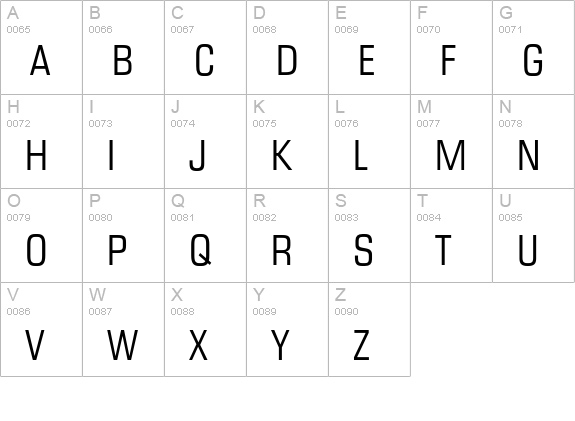
EuropeCond Font Details
EuropeCond font is a modern and stylish typeface that exudes sophistication and elegance. With its sleek lines and clean design, this font is perfect for a wide range of design projects, from branding to editorial to web design. The condensed style of this font makes it ideal for fitting more text into limited spaces without sacrificing readability. What sets EuropeCond font apart is that it is not only visually appealing, but also completely free to use. Whether you are a designer looking to elevate your projects or a business owner seeking a fresh look for your brand, EuropeCond font is the perfect choice. You can freely download EuropeCond font at FontsMarket.com and start using it in your designs today.